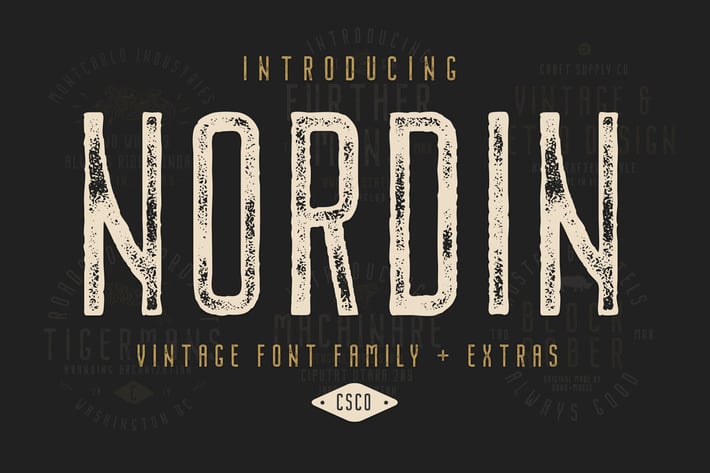
Nordin Vintage Font Family
Introducing Nordin Vintage Font Family
Nordin Vintage Font Family includes 4 Style Fonts. It can be used to create almost all types of design projects like print materials. Just use your imagination and some graphic design set in Extras, your project will become more alive and look great than ever with one of the style of Nordin Vintage Font Family.
You want to make a greeting card or a package design, or even a brand identity, craft design, any DIY project, book title, wedding font, pop vintage design, retro design or any purpose to make your art / design project look pretty and trendy? Feel free to play with style of this font!
1. Nordin Regular
2. Nordin Outline
3. Nordin Rough
4. Nordin Stamp
1. All Caps font
2. Standard Ligatures
3. Numerals & Punctuations (OpenType Standard)
4. Accents (Multilingual characters) (AÀÁÂÃÄÅCÇDÐEÈÉÊËIÌÍÎÏNÑOØÒÓÔÕÖUÙÜÚÛWYÝŸỲŸÆŒßÞ)